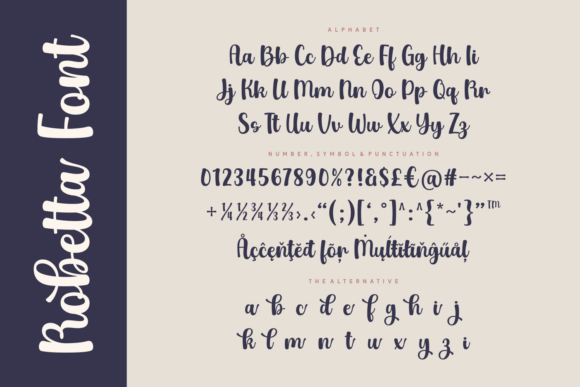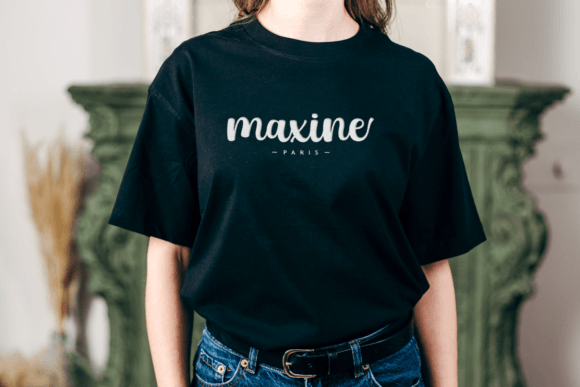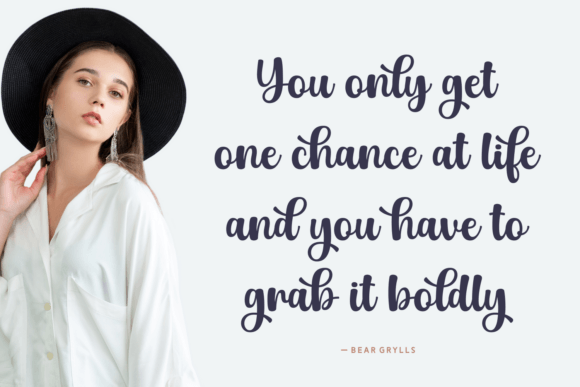
Introduction to Robetta Font
Robetta is a charming and modern script font with a clean, bold design.
Its smooth curves and simplistic elegance make it perfect for projects that demand sophistication with a casual touch Ideal for branding, social media posts, wedding invitations, and product designs, Robetta adds a welcoming personality to every design it graces.